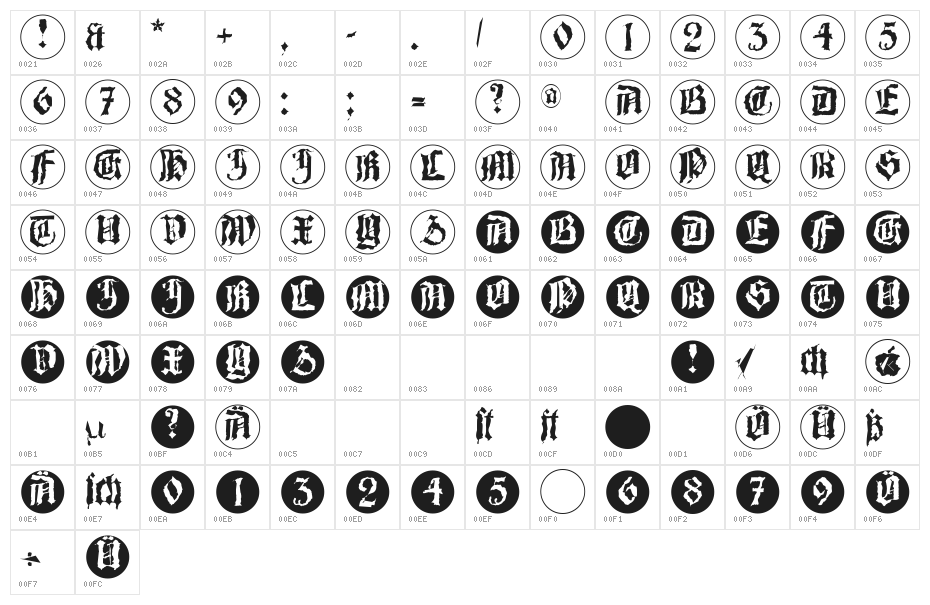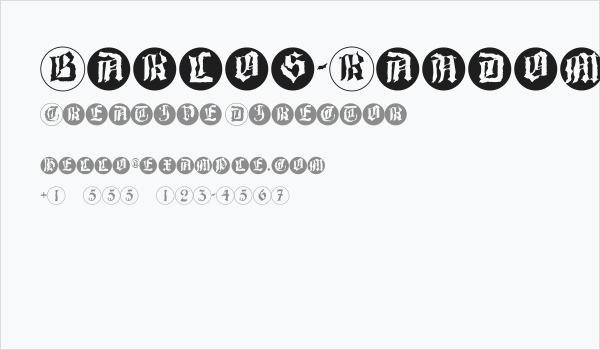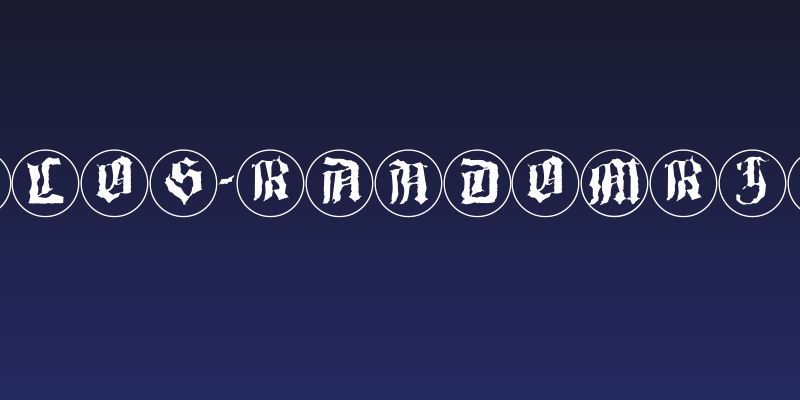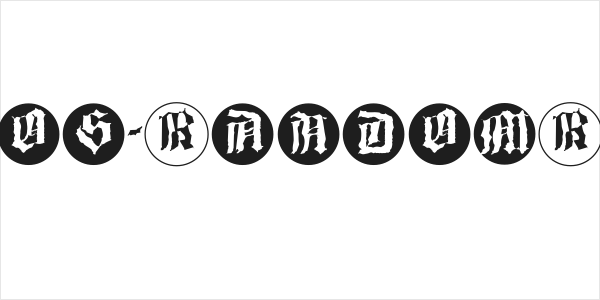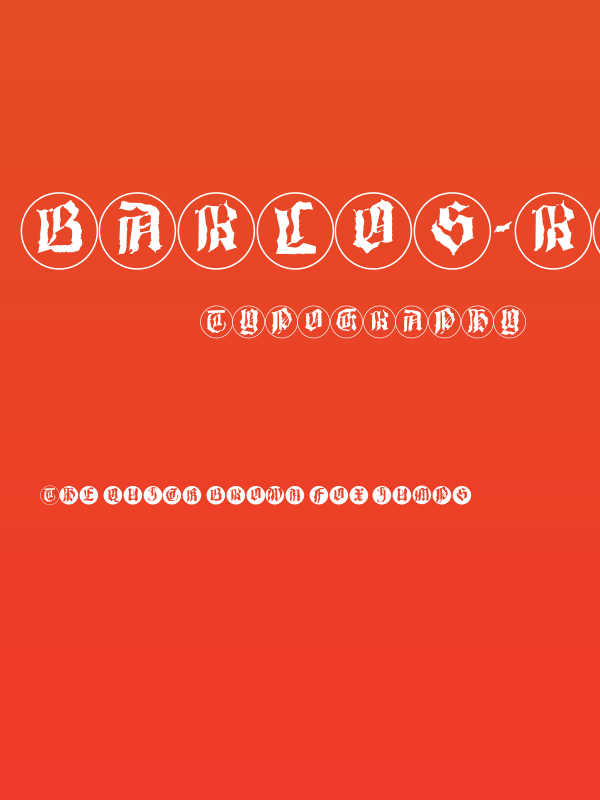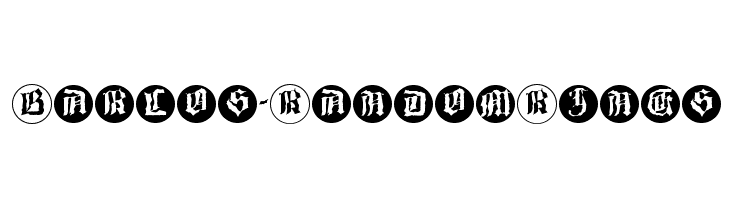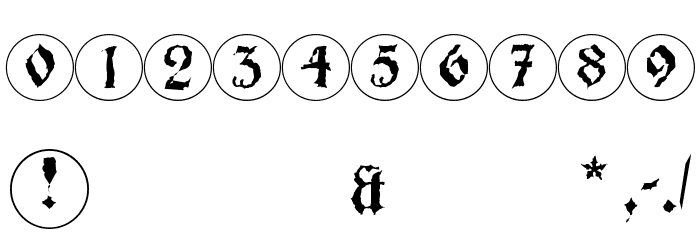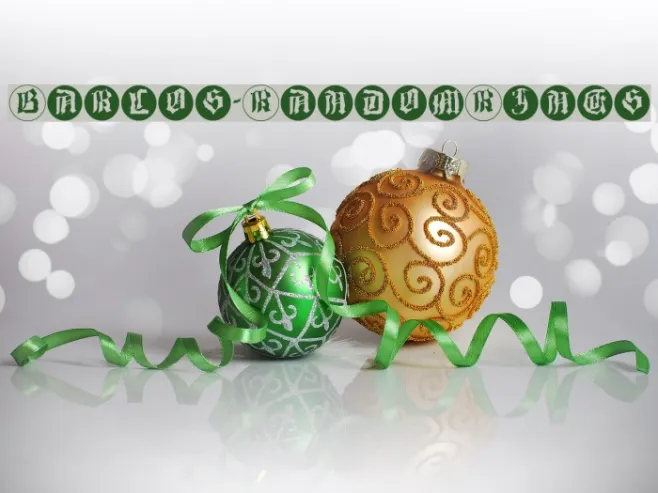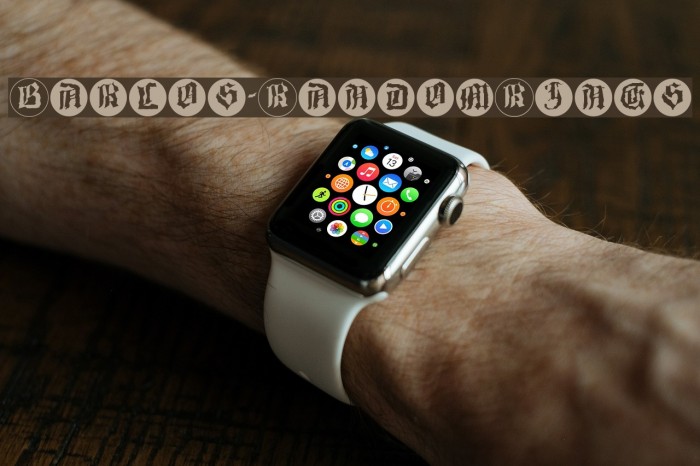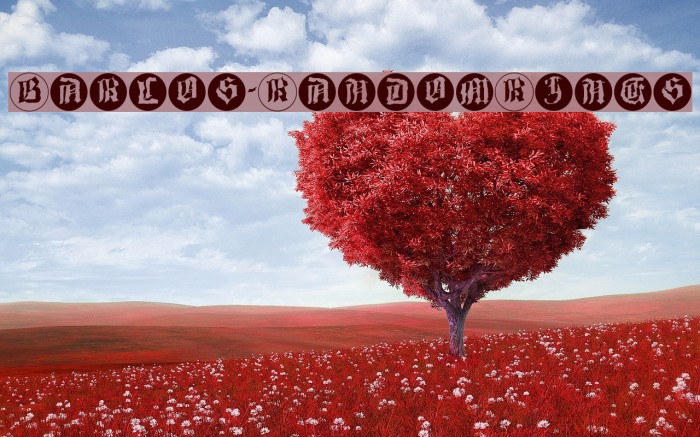
Barlos-RandomRings Font
Barlos-RandomRings Description
This font features a distinctive blackletter style, characterized by its ornate and intricate letterforms. Each character is enclosed within a circular border, adding a unique and decorative touch. The uppercase letters are bold and dramatic, with sharp angles and flourishes that evoke a sense of historical elegance. The lowercase letters maintain the same stylistic elements, ensuring consistency throughout the typeface. The numbers and special characters are similarly designed, fitting seamlessly with the overall aesthetic. This font's striking appearance makes it ideal for projects that require a touch of vintage or medieval flair.
| Use Case | Logos, Headlines, Decorative elements |
| Proposed Projects | Ideal for medieval-themed designs, vintage posters, book covers, and branding that requires a historical touch. |